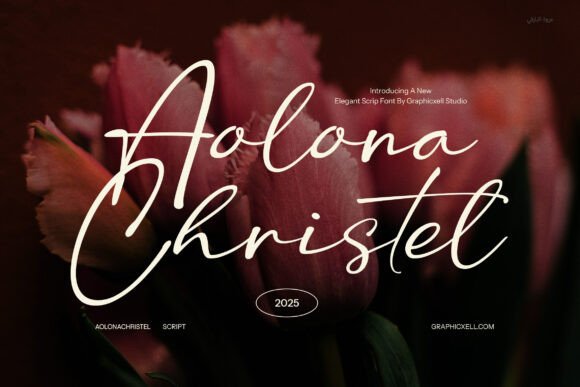
Aolona Christel Font: Elevate Your Designs with Elegance and Sophistication
In the world of typography, few fonts manage to capture the essence of elegance and sophistication as effectively as the Aolona Christel Font. This stunning, elegant signature script typeface is designed to add a touch of class and style to any project, making it a versatile tool for designers and brands alike. Crafted with natural hand strokes, Aolona Christel exudes a personal, authentic charm that sets it apart from more conventional typefaces.
The Characteristics of Aolona Christel Signature Font
Aolona Christel Signature Font is characterized by its fluid, flowing curves that make it the perfect choice for projects that require an elegant and timeless feel. Its smooth, flowing strokes are reminiscent of calligraphy, giving every project a refined, artistic touch. The font’s natural hand strokes lend a sense of authenticity and personality to designs, making it ideal for a wide range of applications.
Versatility in Design Applications
Aolona Christel Signature Font is more than just a typeface—it’s a versatile tool for creating memorable and high-quality designs. Its applications are vast and varied, making it perfect for:
- Branding and Logo Design: Elevate your brand’s visual identity with a sophisticated and elegant font that communicates class and style.
- Corporate Identities: Use Aolona Christel to create a professional and upscale aesthetic for your company’s promotional materials.
- Creative Industries: Make a statement with album covers, song titles, and film branding that exude elegance and sophistication.
- Product Packaging: Add a luxurious touch to your product packaging with Aolona Christel’s graceful lettering.
- Invitations and Greeting Cards: Create beautiful and memorable invitations and greeting cards for special occasions.
- Holiday Designs: Bring a touch of elegance to your holiday designs and marketing materials.
- Boutique and Food Brand Designs: Elevate your boutique or food brand’s visual identity with a unique and sophisticated font.
- Web Design: Use Aolona Christel to add a touch of elegance and sophistication to your website’s typography.
Crafting Memorable Designs with Aolona Christel
Aolona Christel Signature Font is designed to help you create memorable and high-quality designs that leave a lasting impression. Its signature script style offers an elegant and professional aesthetic that is perfect for:
- Advertisements: Stand out with elegant and sophisticated typography that captures attention.
- Labels and Magazines: Use Aolona Christel to create visually appealing labels and magazine headers.
- Promotional Materials: Elevate your promotional materials with a font that communicates class and style.
- Calligraphy and Custom Wedding Designs: Create beautiful and elegant calligraphy and custom wedding designs that impress.
The Benefits of Using Aolona Christel Signature Font
There are several benefits to using Aolona Christel Signature Font in your designs:
- Elegance and Sophistication: Aolona Christel adds a touch of elegance and sophistication to any project.
- Versatility: The font is versatile and can be used in a wide range of design applications.
- Authenticity: Aolona Christel’s natural hand strokes lend a sense of authenticity and personality to designs.
- Timeless Beauty: The font’s classic and elegant design ensures that it will remain timeless and relevant.
In conclusion, Aolona Christel Signature Font is a stunning, elegant signature script typeface that is perfect for designers and brands looking to add a touch of sophistication and elegance to their designs. Its versatility, authenticity, and timeless beauty make it a valuable tool for creating memorable and high-quality designs. Whether you’re working on a branding project, creative endeavor, or web design, Aolona Christel is a must-have font that will help you leave a lasting impression.
Key Takeaways
- Aolona Christel Signature Font is a stunning, elegant signature script typeface.
- The font is characterized by its fluid, flowing curves and natural hand strokes.
- Aolona Christel is versatile and can be used in a wide range of design applications.
- The font adds a touch of elegance and sophistication to any project.
- Aolona Christel is perfect for designers and brands looking to create memorable and high-quality designs.